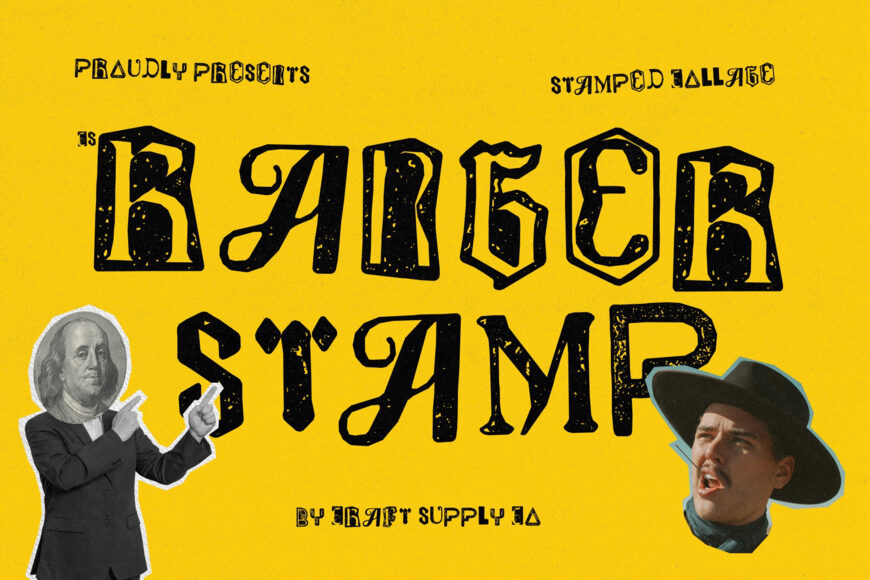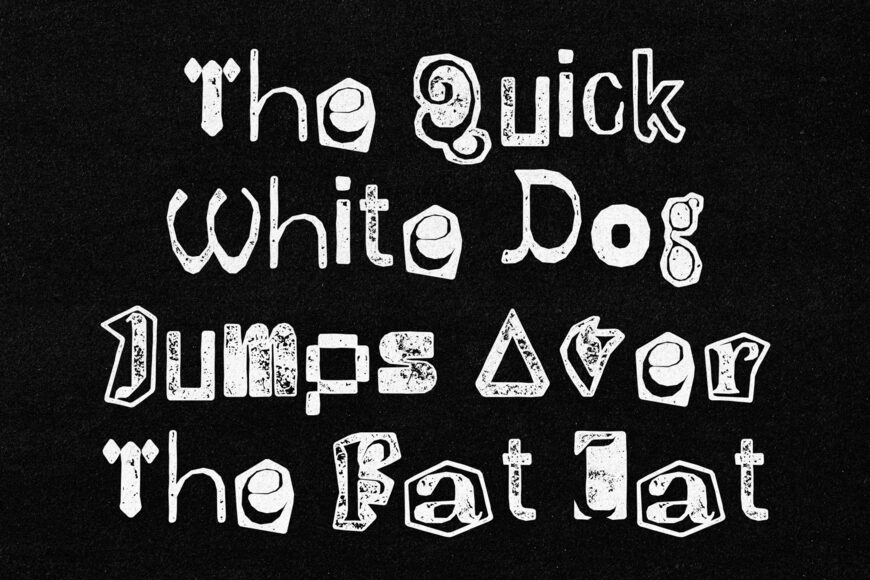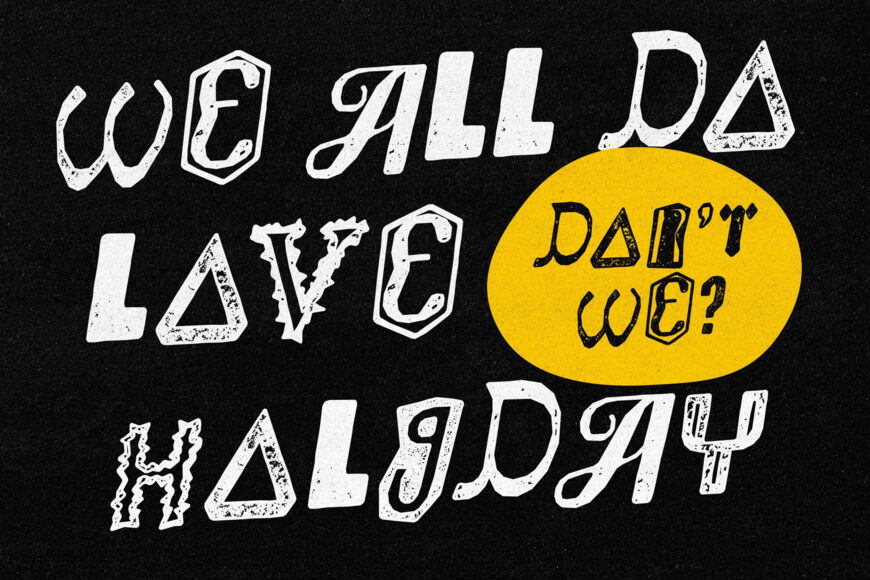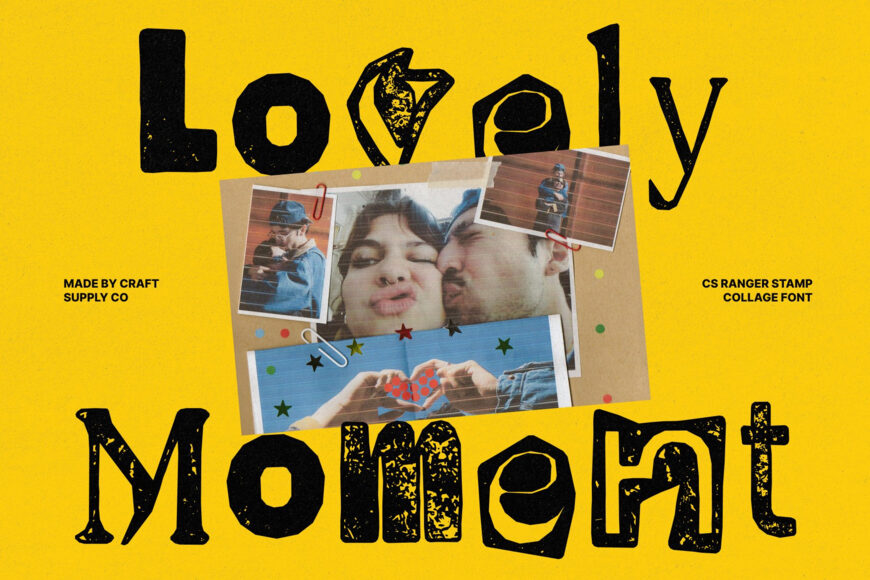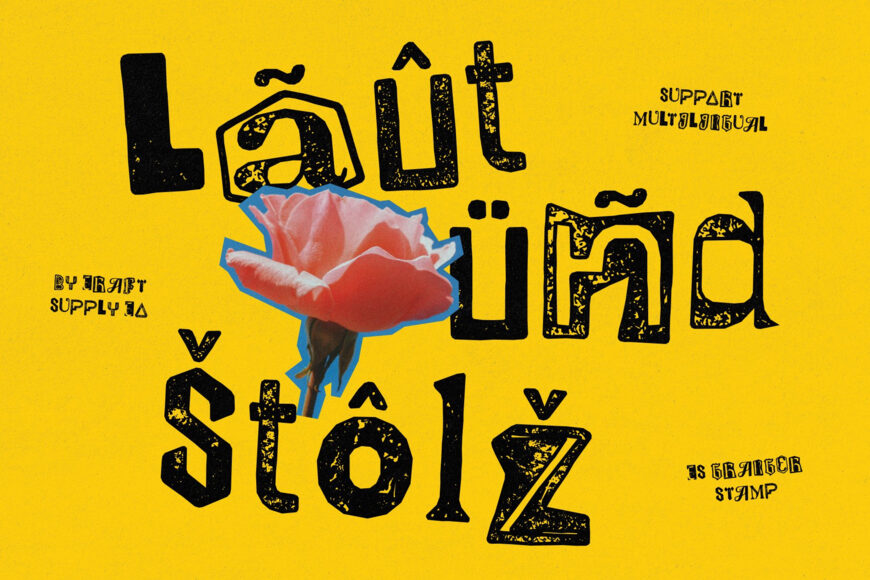
CS Ranger Stamp Font combines eclectic cut-out lettering with vintage stamp texture. Its mismatched characters vary in shape, size, and style, creating a playful, collage-inspired look full of personality. Rough, uneven details add handcrafted depth and a nostalgic feel reminiscent of old printing techniques, retro posters, ransom notes, and DIY zines.
Bold, rebellious, and expressive, this font is ideal for posters, album covers, branding, merchandise, packaging, social graphics, editorial designs, logos, headlines, and apparel seeking a distinctive, experimental edge.